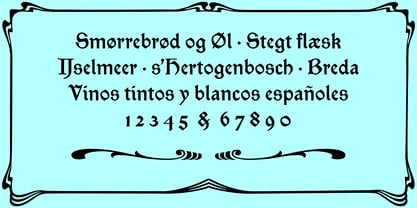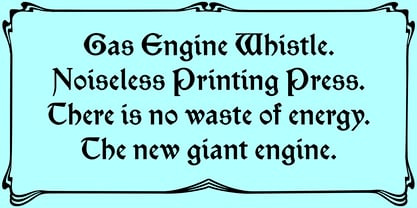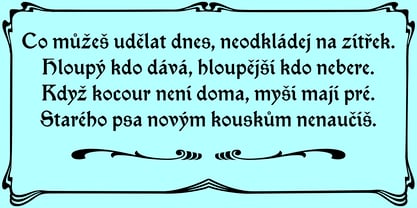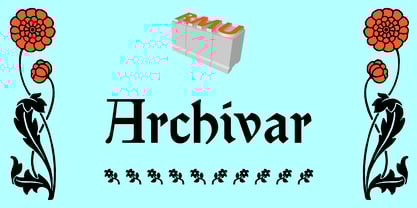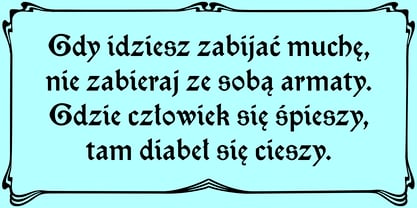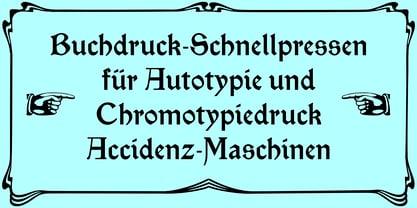
Archivar™
La famille de polices Archivar a été conçue par Ralph M. Unger et publiée par RMU. Archivar contient 1 styles. En savoir plus sur cette famille
Inspired by both Morrisgotisch and Archivgotisch which are similar in design, I designed Archivar for modern use. This design allowed it to extend the font to Central European, Baltic and Romanian languages.
It contains the long s and discretionary ligatures. That's why it is recommended to activate this OT-feature. The long s can be reached either by typing the integral sign [ ∫ ] or by turning the round s into the long s using the OT-feature historical forms.